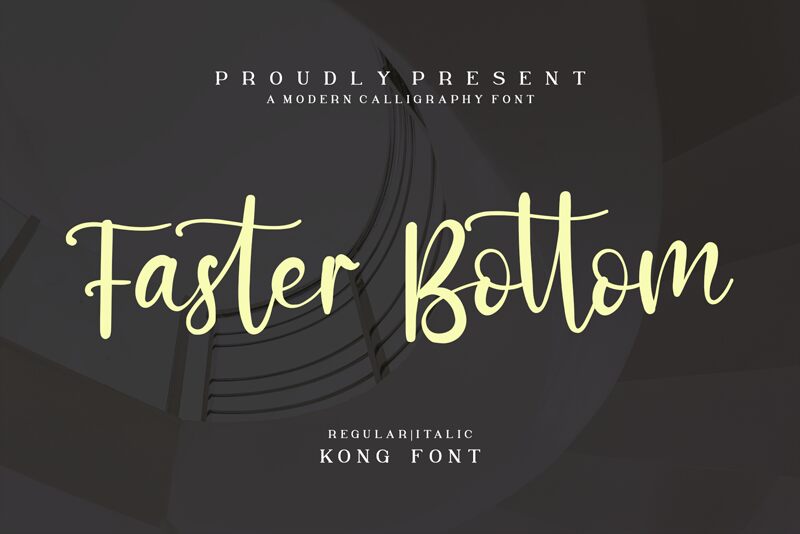
Faster Bottom font family created by Kong Font is a free calligraphy font collection focusing on flowing lines and clean shapes. Faster Bottom consists of 4 font styles, each looking spectacular on its own, but even better when used in contrast with each other. Simple geometric compositions allow the font to move away from the traditional art of hand-drawn print while still keeping the average line thickness and endings true to calligraphy. Each standard character is a beauty on its own, yet carefully collected together into sophisticated and timeless styles.
Projects that could benefit from the use of Faster Bottom include branding, package & product design, brochure covers, logo design, labels, and typography-focused website design. With lowercase letters setting the calligraphic style, uppercase letters are even more interesting with great potential to be used as logo initials or on monograms. The elegance of the seamless connections makes the full words look fluid and visually harmonic.